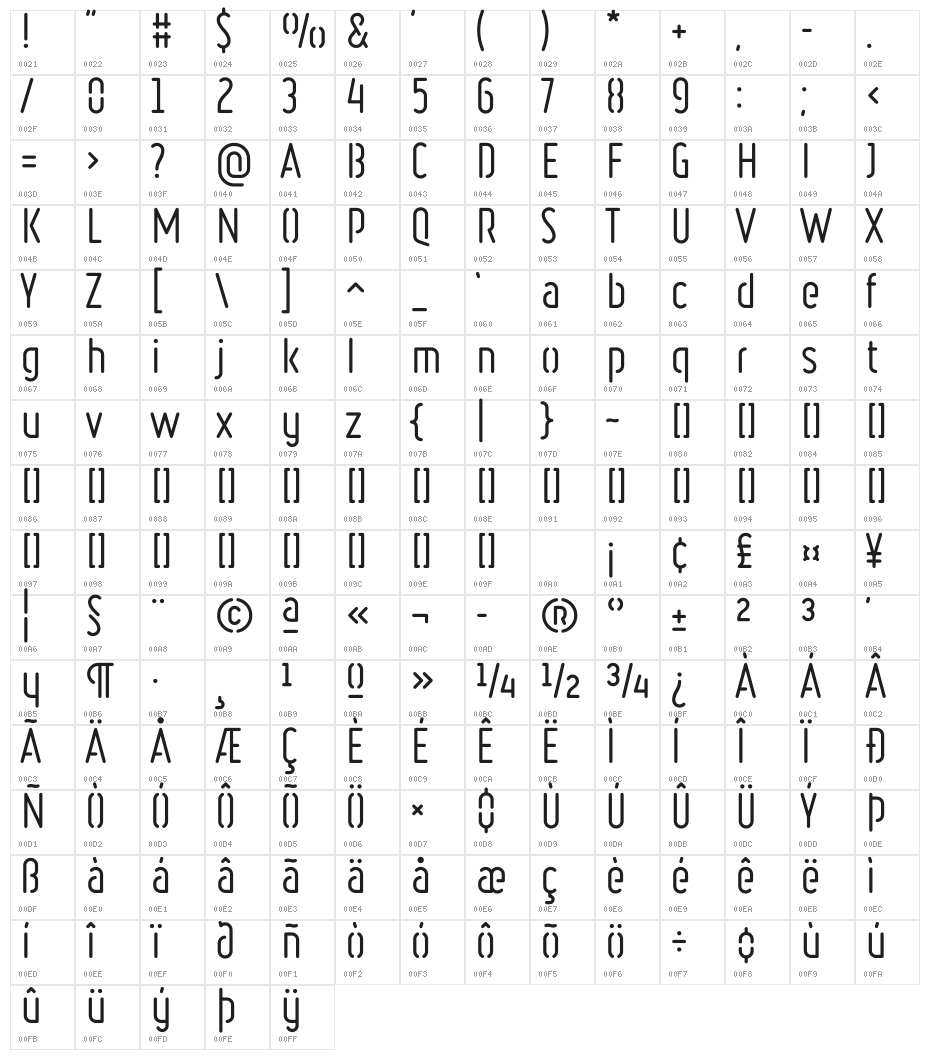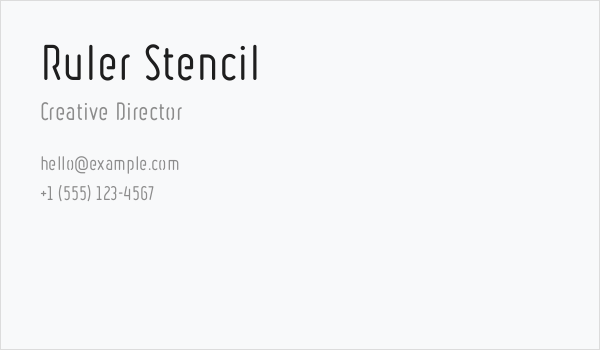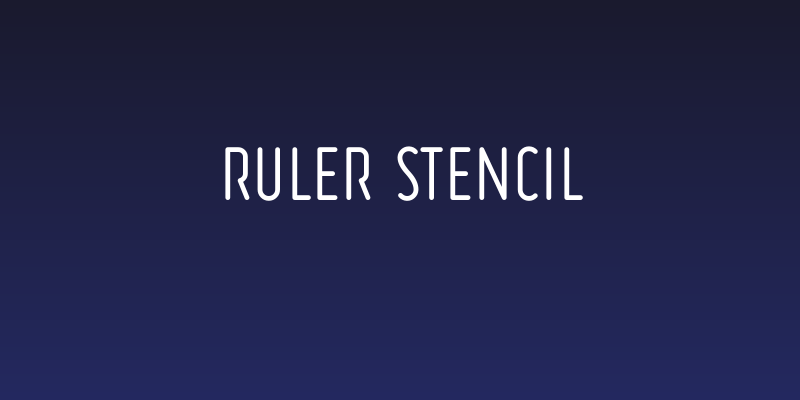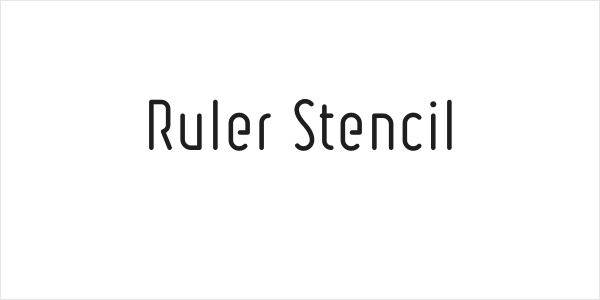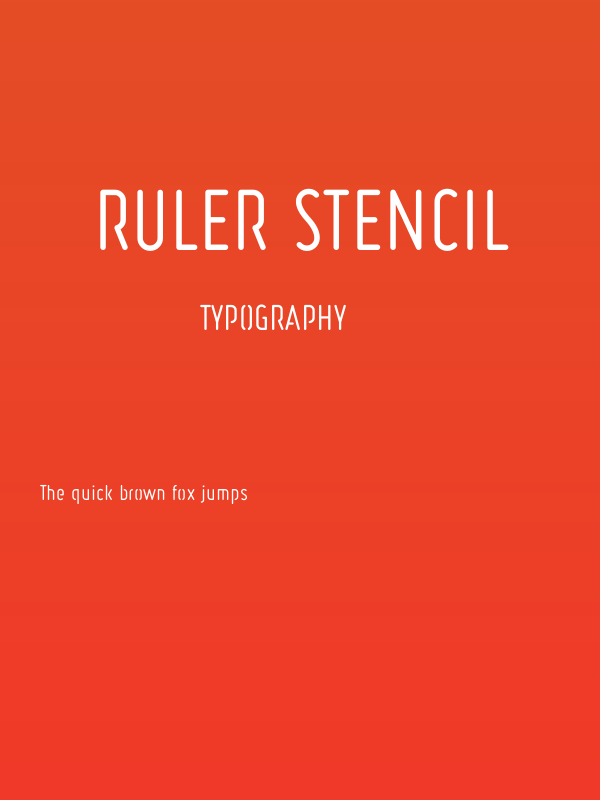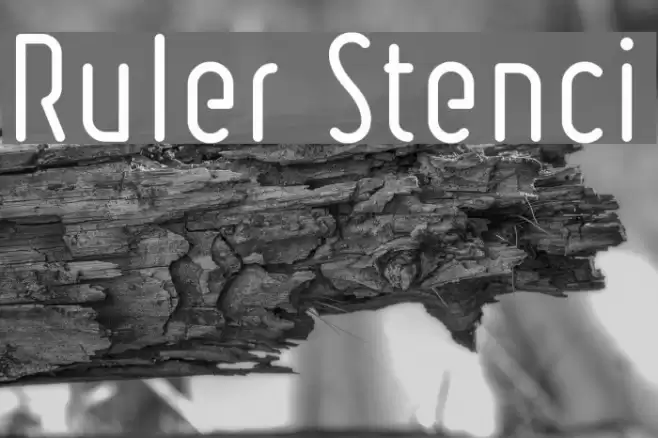
Ruler Stencil Font
Ruler Stencil Description
This font features a clean, geometric design with a stencil-like appearance. The characters are constructed with consistent line thickness, creating a uniform and modern look. The uppercase and lowercase letters maintain a similar width, enhancing readability. The numbers and special characters are designed to match the overall aesthetic, with rounded edges and open spaces that contribute to its distinctive style. This font is versatile, suitable for both digital and print media, and can be used to create a contemporary and industrial feel.
| Use Case | Headlines, Logos, Signage |
| Proposed Projects | Ideal for branding, signage, packaging, and editorial design projects that require a modern and industrial aesthetic. |